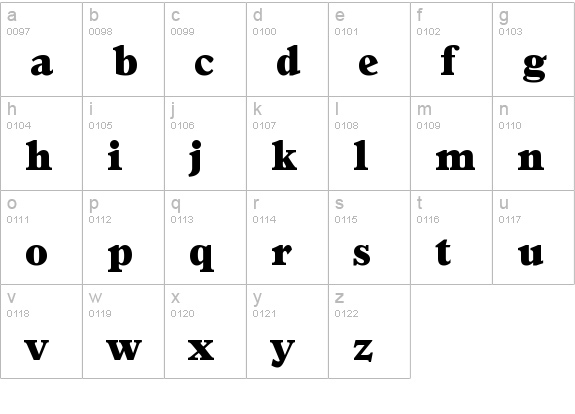
GranadaSerial-Heavy-Regular is a heavy, high-impact variant in the GranadaSerial typeface family \xE2\x80\x94 well suited to high-impact headlines, posters, and display advertising.
GranadaSerial-Heavy-Regular is a bold and eye-catching font that exudes strength and confidence. Its thick, heavy strokes make it perfect for headers, titles, and other prominent text elements. The font's distinctive serifs add a touch of elegance, making it versatile for both modern and classic designs. Best of all, GranadaSerial-Heavy-Regular is available for free download at FontsMarket.com. This means you can easily enhance your projects with this stunning typeface without breaking the bank. Whether you're working on a branding project, poster design, or website, GranadaSerial-Heavy-Regular is sure to make a bold statement and leave a lasting impression. Download it today and elevate your typography game!